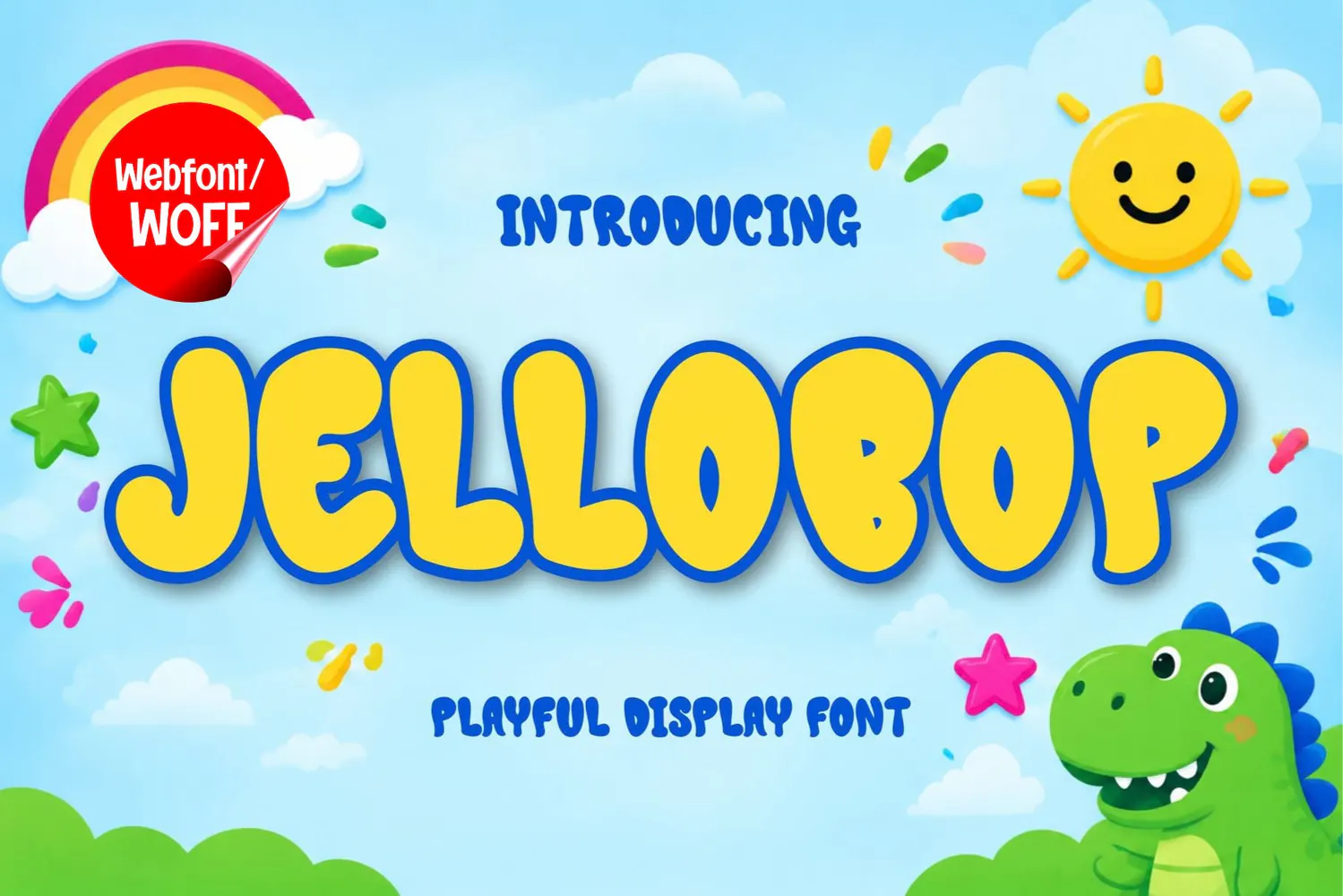
Jellobop - Playful Display Webfont
Jellobop is a playful display webfont designed to bring cheerful personality and expressive typography to modern websites. Its friendly letterforms make it an excellent choice for website headlines, hero sections, landing pages, promotional banners, product titles, children's websites, creative portfolios, online stores, educational platforms, and colorful brand experiences.
The font works especially well for large headlines, campaign messages, featured content, navigation titles, promotional sections, and call-to-action text where typography needs to attract attention. Its playful character creates a warm and approachable atmosphere that works beautifully with children's brands, toys, education, lifestyle products, creative studios, cafés, events, and fun ecommerce projects.
Jelobop includes uppercase characters, multilingual support, numbers, and punctuation, allowing designers to create complete and consistent web typography across different languages. Its distinctive display style can be combined with clean sans serif fonts for supporting content, creating a balanced hierarchy between expressive headlines and readable body text.
Jelobop is ideal for colorful landing pages, children's activity websites, school projects, creative agencies, product launches, seasonal campaigns, online shops, portfolio websites, and social-focused brands. Its playful appearance helps transform ordinary website headlines into memorable visual elements.